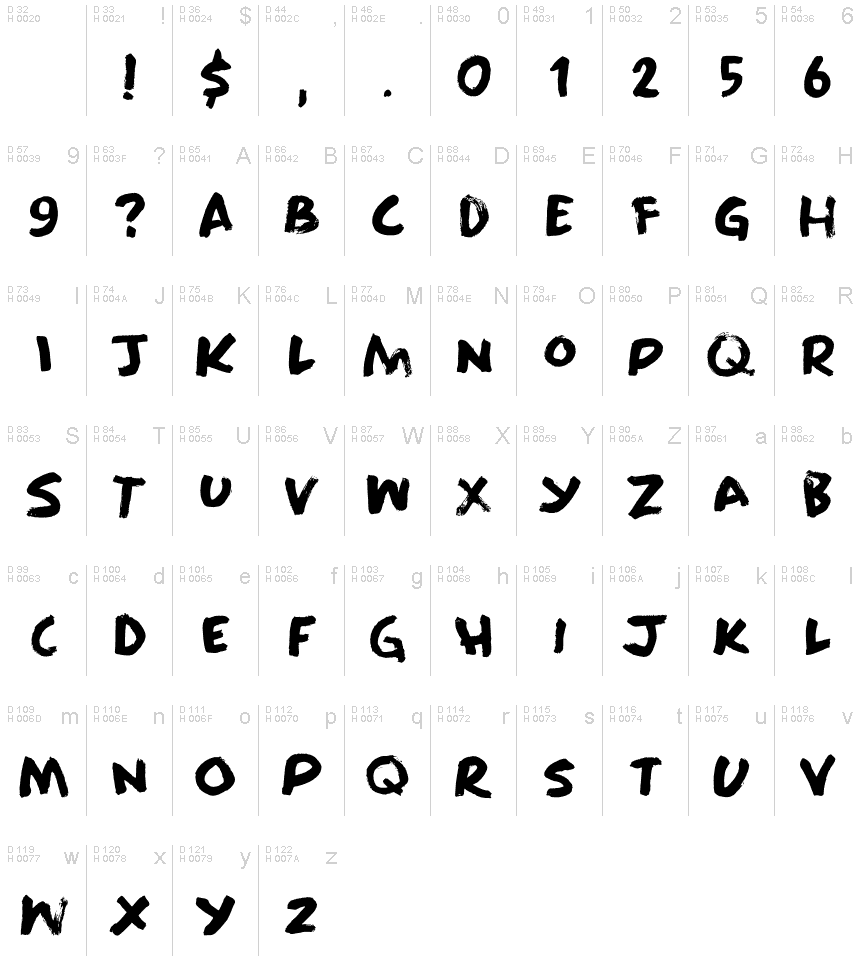
Blazing Furnace DEMO Regular
Blazing Furnace, crafted by font designer D K, embodies the raw energy and spontaneity of brush strokes. Its bold weight and semi-expanded width convey a sense of robust presence, making it a standout choice for projects that demand attention. The distinct texture and fluidity of Blazing Furnace reflect an aesthetic that's both authentically artistic and unapologetically expressive. This font is perfectly poised for creative endeavors ranging from eye-catching marketing materials to dynamic web design elements where a touch of edgy artistry is desired.